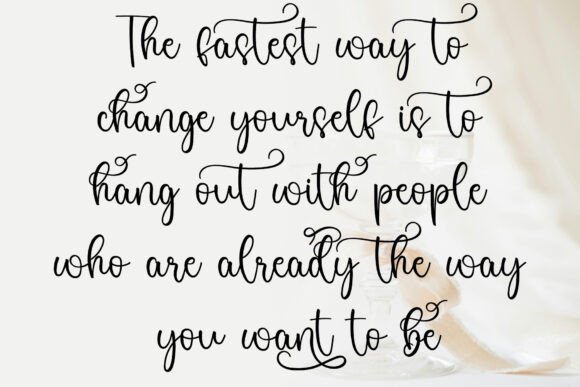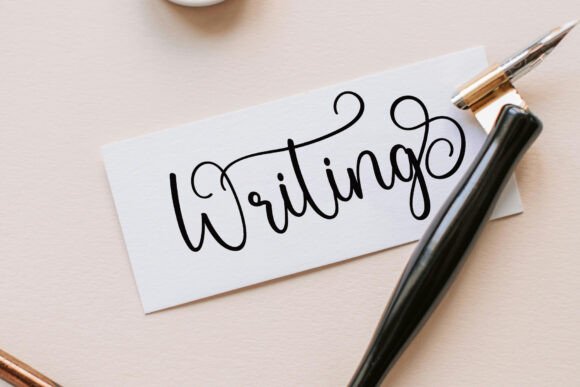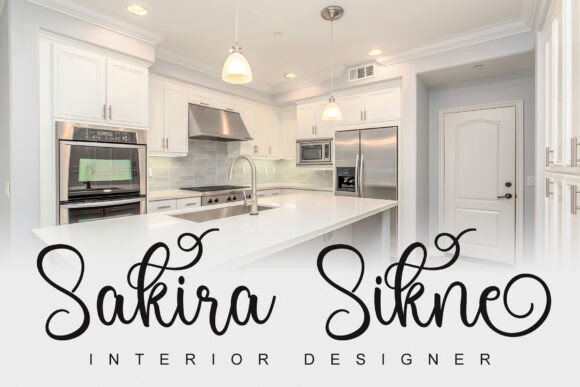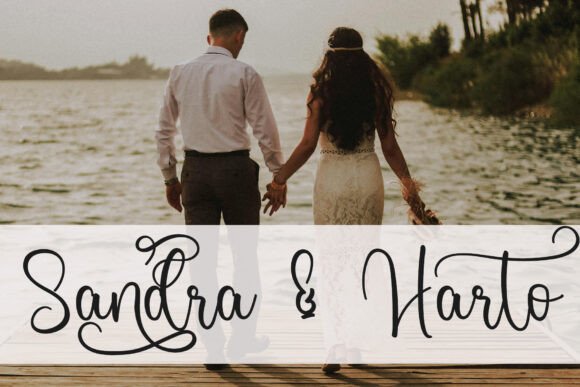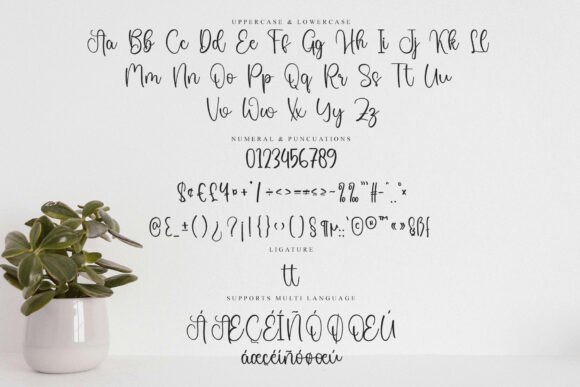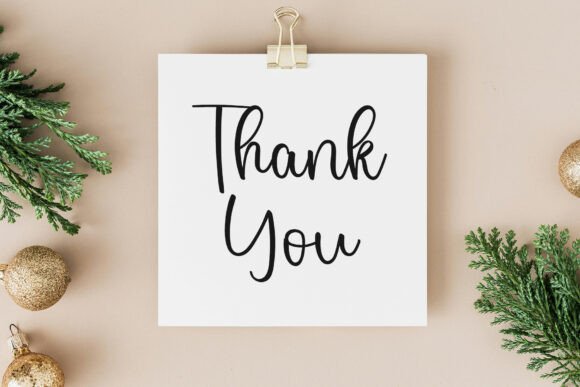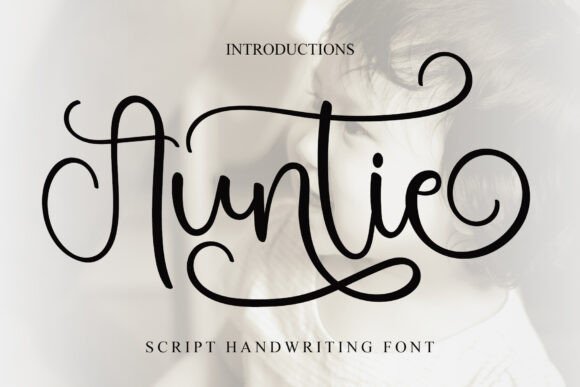
Auntie Font: Elevate Your Designs with Elegance and Personality
In the world of typography, fonts play a crucial role in conveying the tone and aesthetic of a design. For designers and crafters looking to add a touch of sophistication and personality to their projects, Auntie Font is an exceptional choice. This beautifully crafted handwriting font seamlessly blends elegance with a modern, artistic touch, making it perfect for a wide range of applications.
The Characteristics of Auntie Font
Auntie Font is distinguished by its flowing strokes and well-balanced curves, which create a sophisticated yet approachable feel. The font’s design is characterized by:
- Elegant Handwriting Style: Auntie Font boasts a refined handwriting style that exudes elegance and poise. Its fluid strokes and carefully crafted letterforms make it stand out from more conventional fonts.
- Modern Artistic Touch: What sets Auntie Font apart is its modern, artistic twist. The font incorporates subtle design elements that give it a fresh and contemporary feel, making it suitable for designs that require a bit of flair.
- Versatility: Whether you’re working on a wedding invitation, a branding project, or a digital platform, Auntie Font adapts effortlessly to various design contexts. Its versatility makes it a valuable addition to any designer’s font collection.
Why Choose Auntie Font?
For designers and crafters seeking a font that can elevate their projects, Auntie Font offers several compelling advantages:
- Unique Personality: In a sea of generic fonts, Auntie Font brings a unique personality to the table. Its distinctive style ensures that your designs stand out and capture attention.
- Emotional Connection: The warmth and approachability of Auntie Font help create an emotional connection with the audience. This is particularly valuable for brands looking to establish a personal and relatable image.
- Professionalism: Despite its artistic nature, Auntie Font maintains a level of professionalism that is suitable for high-end designs and corporate branding. It’s a font that can seamlessly transition from creative projects to more formal applications.
Using Auntie Font in Your Designs
Incorporating Auntie Font into your designs is straightforward, thanks to its compatibility with various design tools and platforms. Here are some ideas for using Auntie Font:
- Wedding and Event Invitations: The elegant and artistic nature of Auntie Font makes it perfect for wedding invitations, save-the-date cards, and other event-related designs.
- Branding and Packaging: For brands aiming to convey a sense of sophistication and approachability, Auntie Font can be used in logos, packaging, and marketing materials.
- Digital Content: Whether it’s a blog, a social media graphic, or a website header, Auntie Font can add a touch of elegance and personality to digital content.
Tips for Maximizing the Impact of Auntie Font
To get the most out of Auntie Font, consider the following tips:
- Pair it with Complementary Fonts: Combining Auntie Font with simpler, sans-serif fonts can create a striking contrast and enhance the overall visual appeal of your design.
- Experiment with Colors: While Auntie Font looks stunning in classic black and white, don’t be afraid to experiment with colors that match your brand’s palette or the theme of your design.
- Pay Attention to Spacing: Ensure that your design has adequate spacing to allow Auntie Font’s elegant strokes to breathe. Proper spacing enhances readability and aesthetic appeal.
Auntie Font is a versatile and stylish handwriting font that can add a touch of class and personality to any design. Its elegant strokes, modern artistic touch, and approachable feel make it an excellent choice for designers and crafters looking to create sophisticated yet relatable designs. By incorporating Auntie Font into your projects, you can elevate your designs and make a lasting impression on your audience.